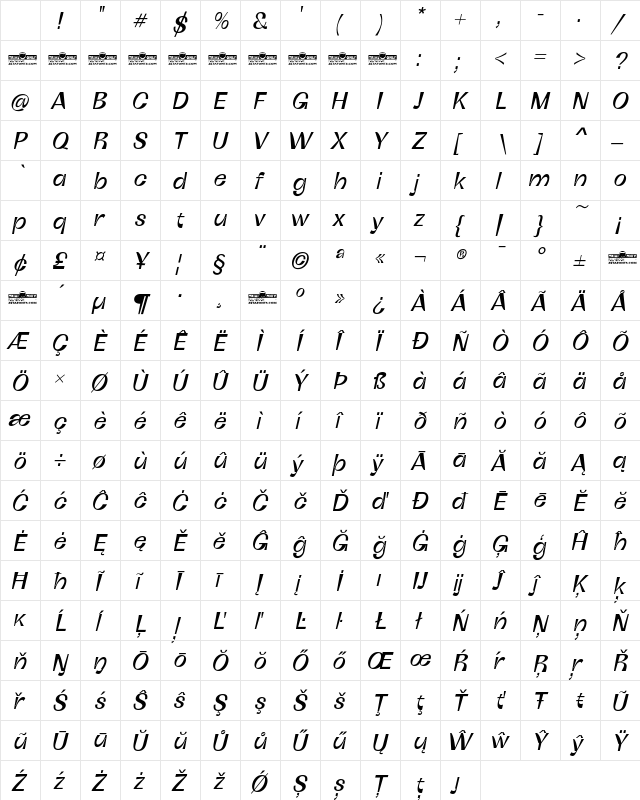
Complete Boring Sans C Trial Italic glyph index. Displaying only characters natively supported by Boring Sans C Trial Italic font.
Boring Sans C Trial is a composed and adaptable typeface that performs quietly and consistently across a wide range of design contexts. The slanted form adds forward momentum and visual energy.
Pro Tip: Use Boring Sans C Trial for emphasis, pull quotes, and subheadings where its slanted energy can add rhythm to the layout.